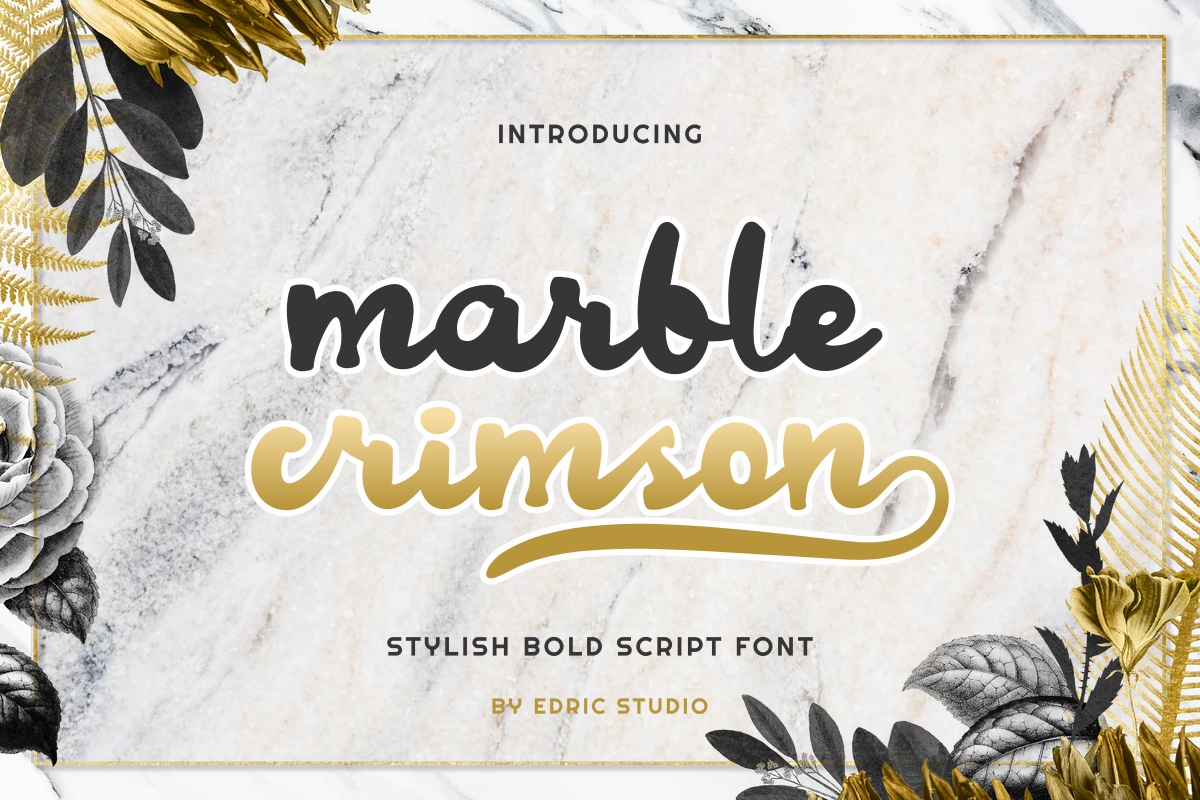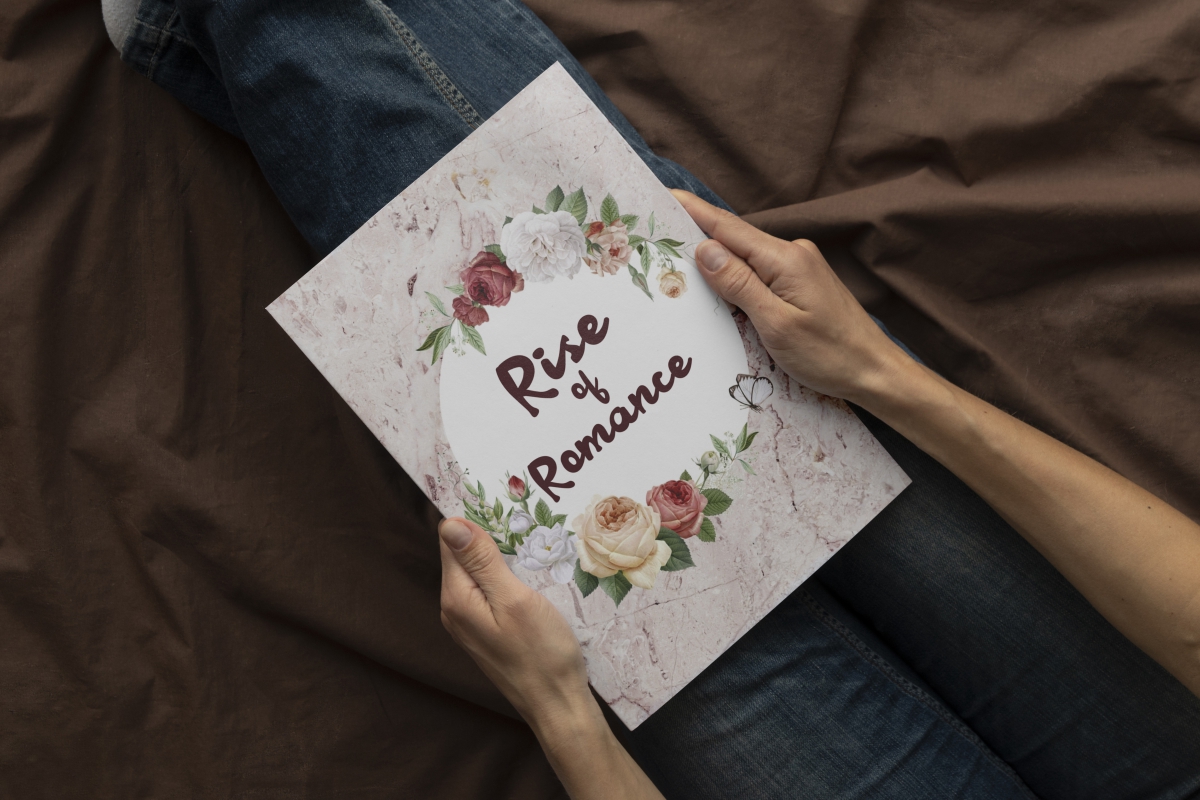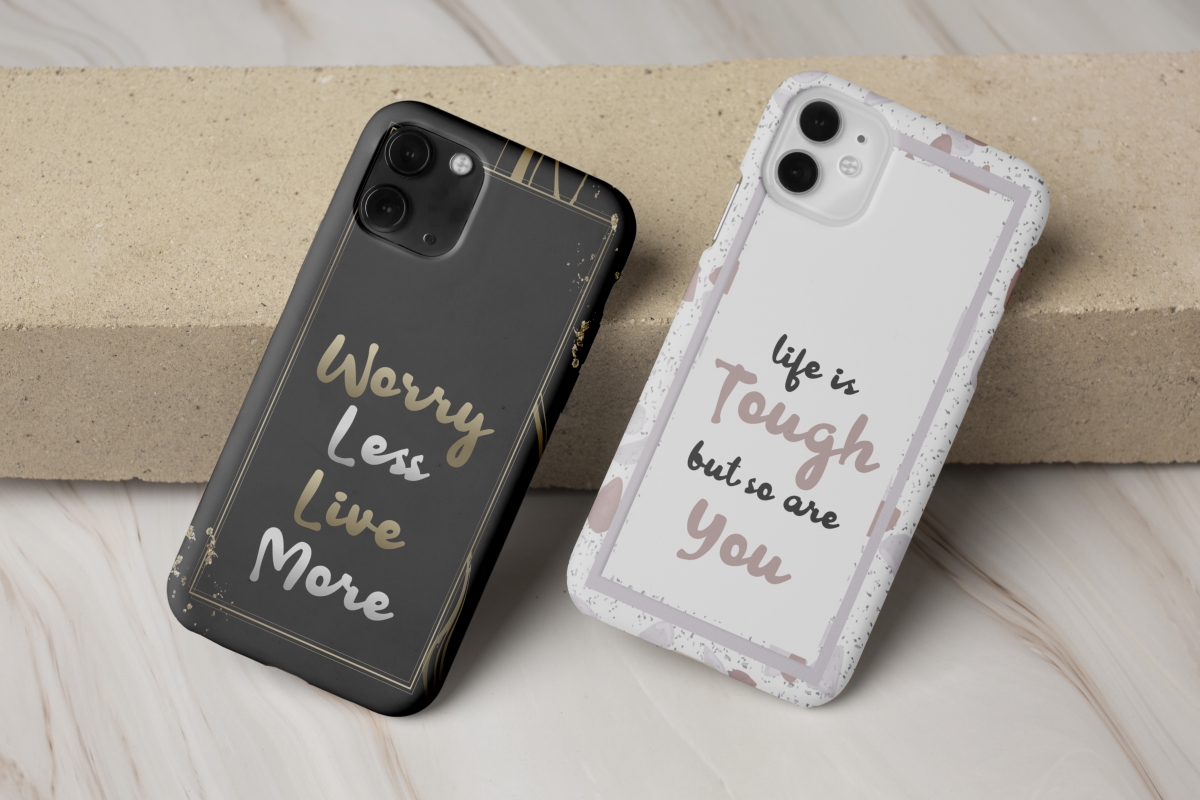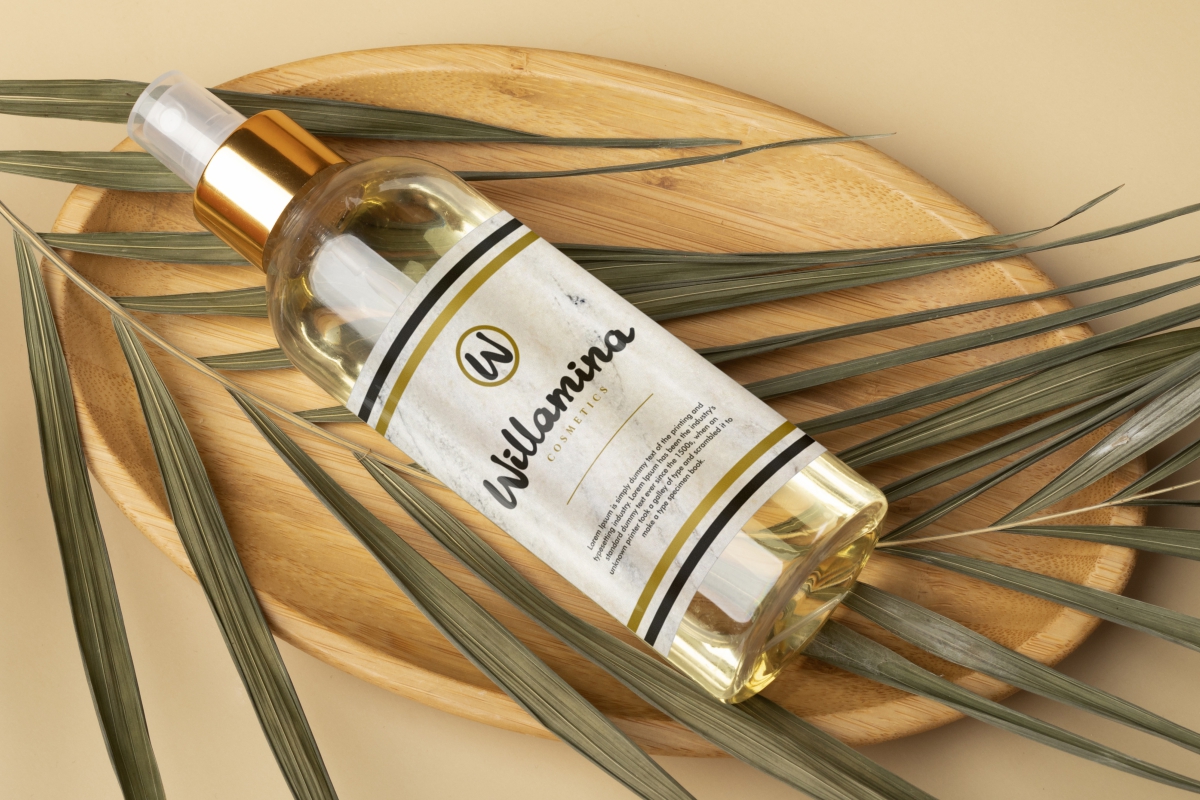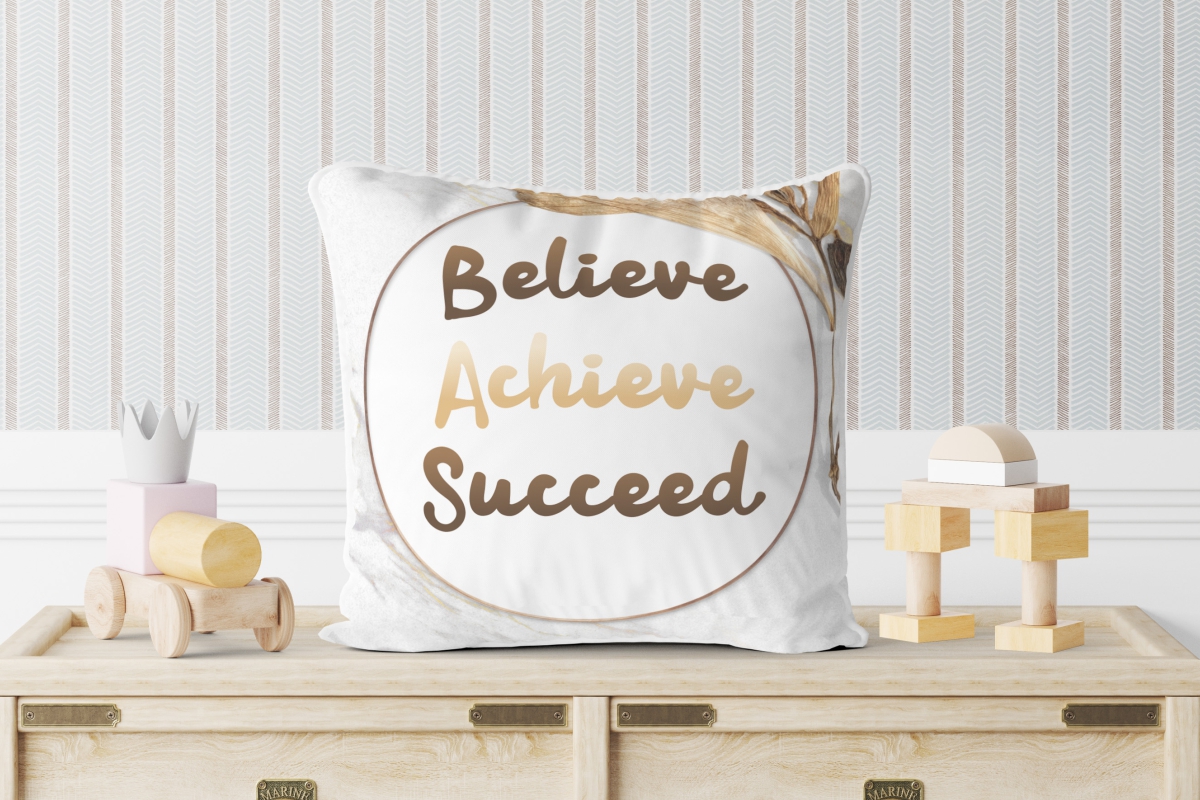
Marble Crimson Font
Marble Crimson Script Font is a stylish script font with bold style, created by EdricStudio. This font will give a natural and classy handwriting look, suitable for any industries, such as accessories, boutique, craft, fashion, furniture, homeware, perfume, publishing, restaurant, wedding organizer, etc.
Marble Crimson Font comes with a full set of Uppercase and Lowercase Basic Characters, Number, a large range of Punctuation and Symbol, Ligature, Swoosh. It has a stunning characters set, perfectly managed with well spaced and kerning. Marble Crimson Font will be great for any projects (with extended license) including: brand logo, invitation, label, poster, quote, screen printing, stationery, title, etc.